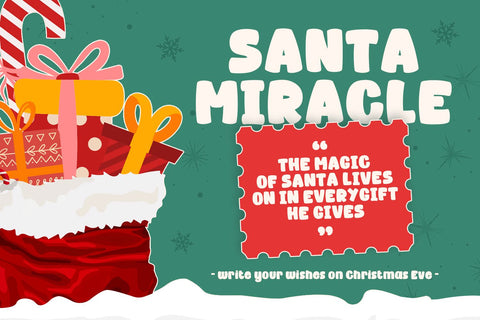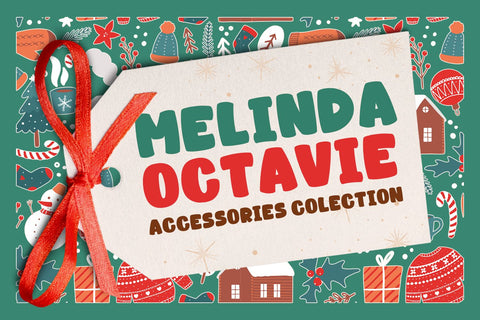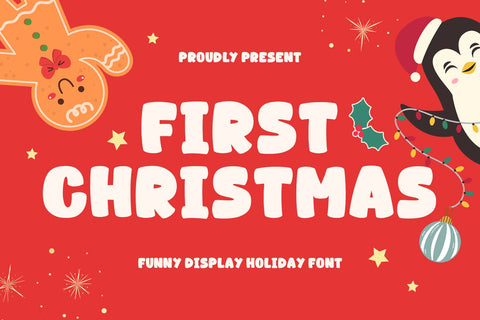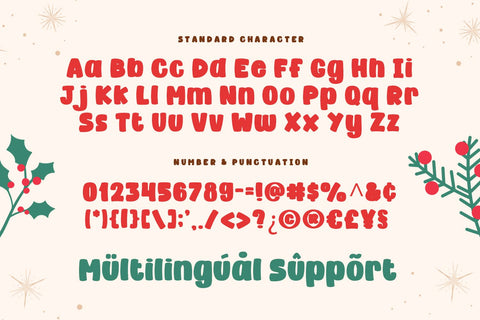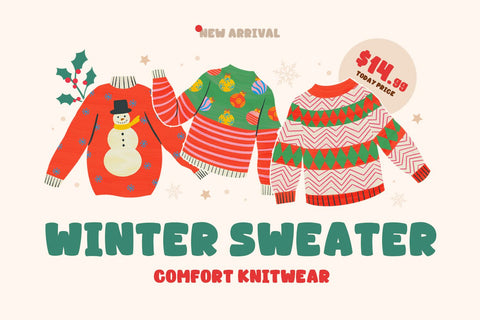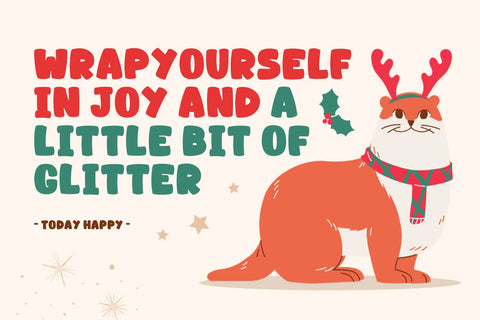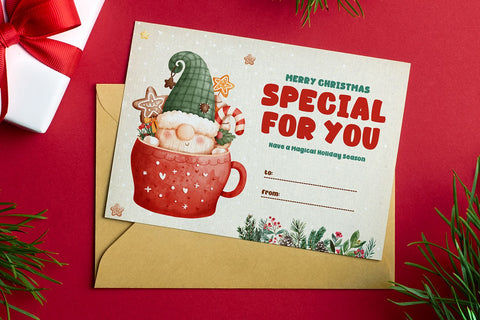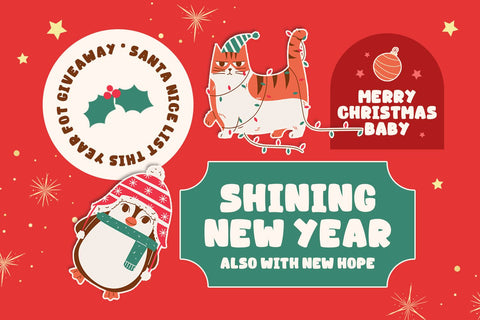
First Christmas – Cute Festive Display Font
First Christmas is a cute display font designed to bring joy, warmth, and playful charm to your holiday creations. With its friendly shapes and cheerful letterforms, this font instantly creates a cozy atmosphere—perfect for celebrating magical and memorable moments.
Crafted with a playful and heartwarming style, First Christmas delivers a fun yet clean look that remains highly readable. Its rounded forms and soft character make every word feel joyful, making it an ideal choice for designs that need a light, happy, and inviting tone.
This font shines in Christmas and winter-themed projects, while also working beautifully for birthdays, kids’ designs, invitations, greeting cards, and festive decorations. Its versatility allows it to adapt effortlessly across both seasonal and everyday creative needs.
First Christmas is perfect for a wide range of applications, including gift tags, posters, stickers, party supplies, social media graphics, and branding. The playful letterforms add personality and warmth, helping your designs feel more personal and engaging.
It also performs exceptionally well in craft and DIY projects, such as Cricut designs, SVG files, handmade decorations, and custom merchandise. Whether used for digital or print, this font brings a delightful and charming touch to every creation.
Key Features
Cute Display Style
Playful and cheerful letterforms with a festive feel.
Friendly & Readable
Easy to read while maintaining a fun personality.
Festive & Versatile
Perfect for both holiday and everyday creative projects.
Craft-Friendly Design
Ideal for Cricut, SVG, and DIY applications.
Multilingual Support
Extended characters for global design use.
Perfect For
• Christmas & Winter Designs
• Holiday Cards & Invitations
• Kids & Birthday Projects
• Gift Tags & Stickers
• Posters & Party Supplies
• Social Media Graphics
• DIY Crafts & Cricut Projects
• Packaging & Branding
Create Joyful Holiday Designs
If you're looking for a font that captures cute charm, festive spirit, and playful energy, First Christmas is the perfect choice. It helps you create designs that feel warm, fun, and full of holiday magic.